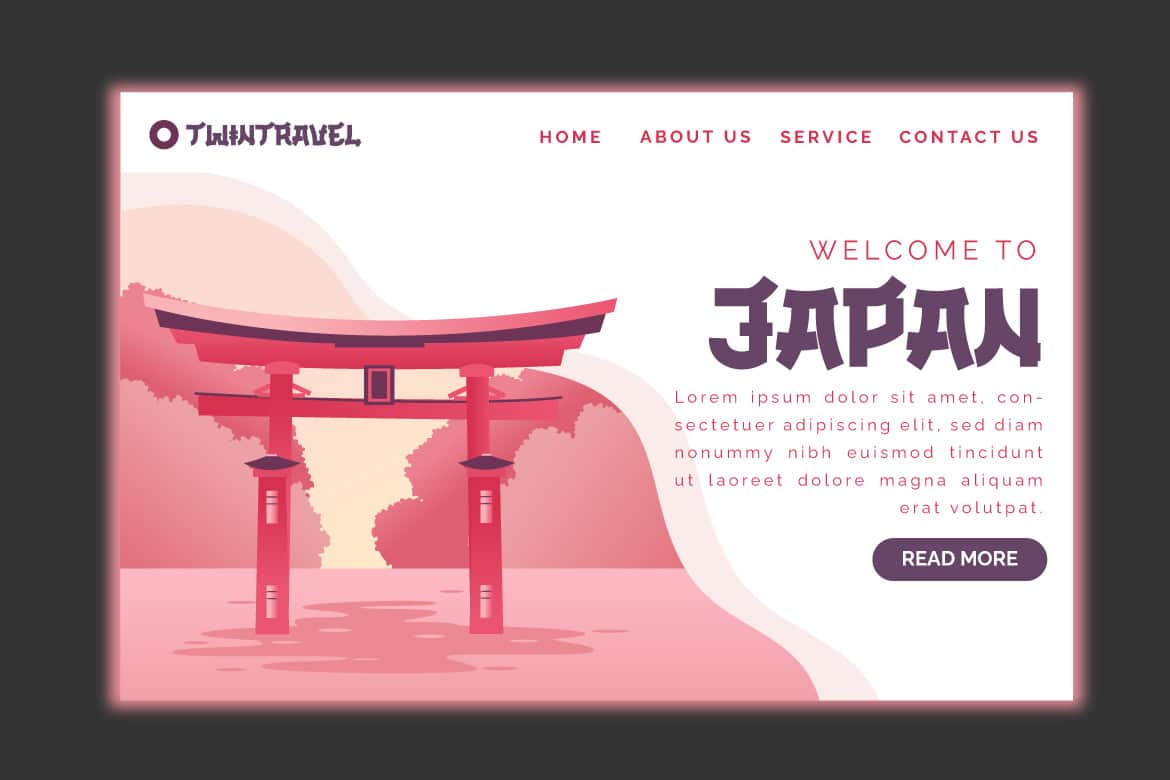
Okasa Font
Okasa Font. We present to you a quirky and contemporary typeface, which you can use to produce an optimal visual display in each of your projects and to impress all of your audience with the unique look of your project.